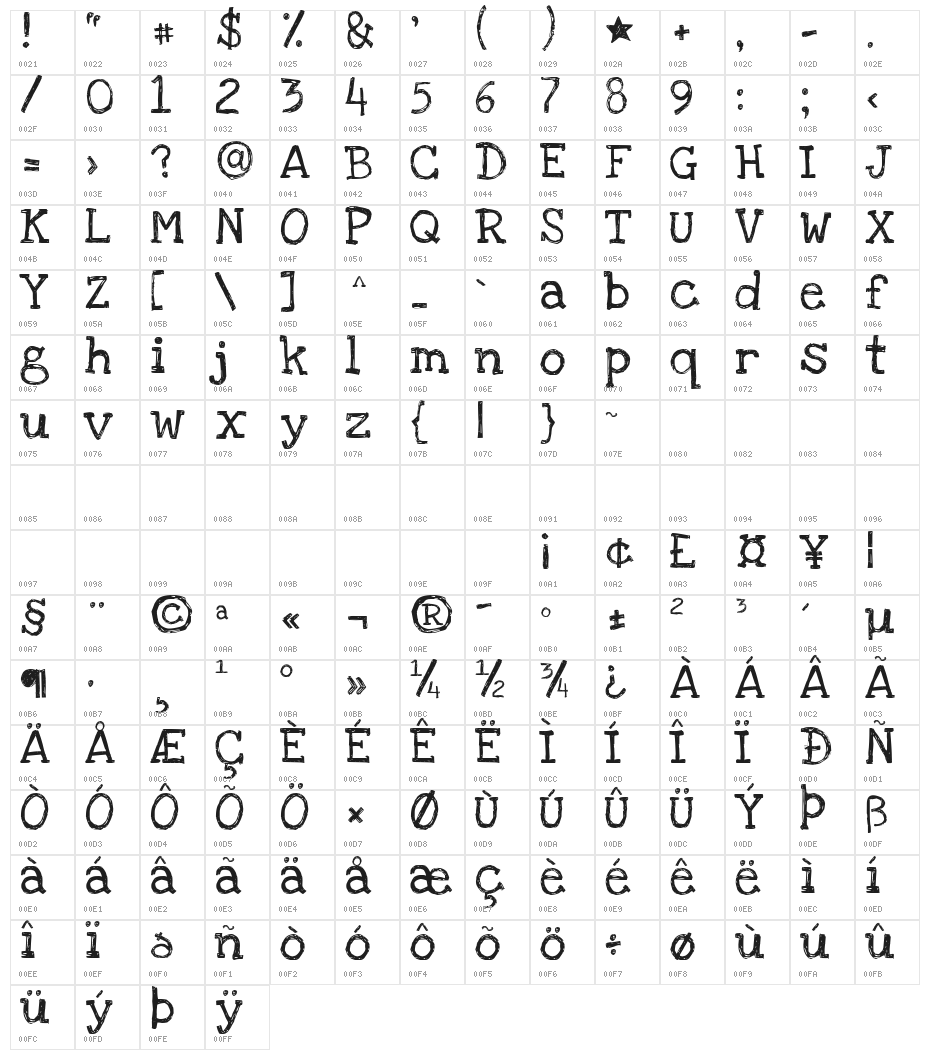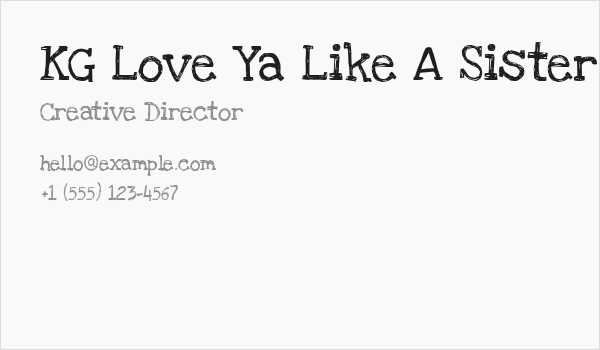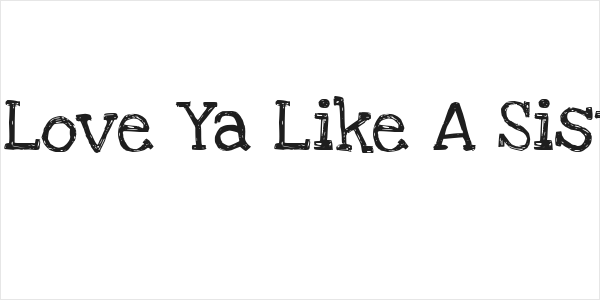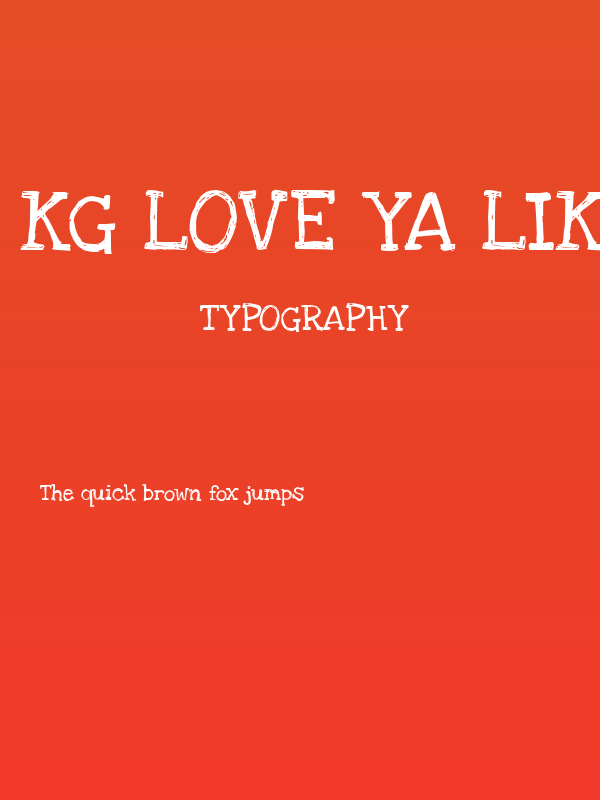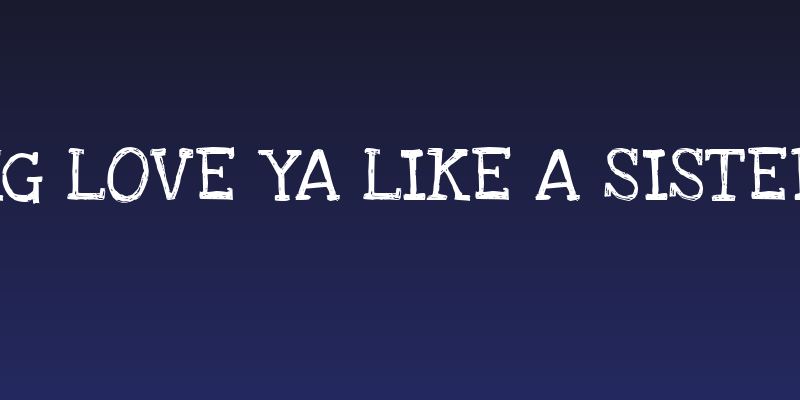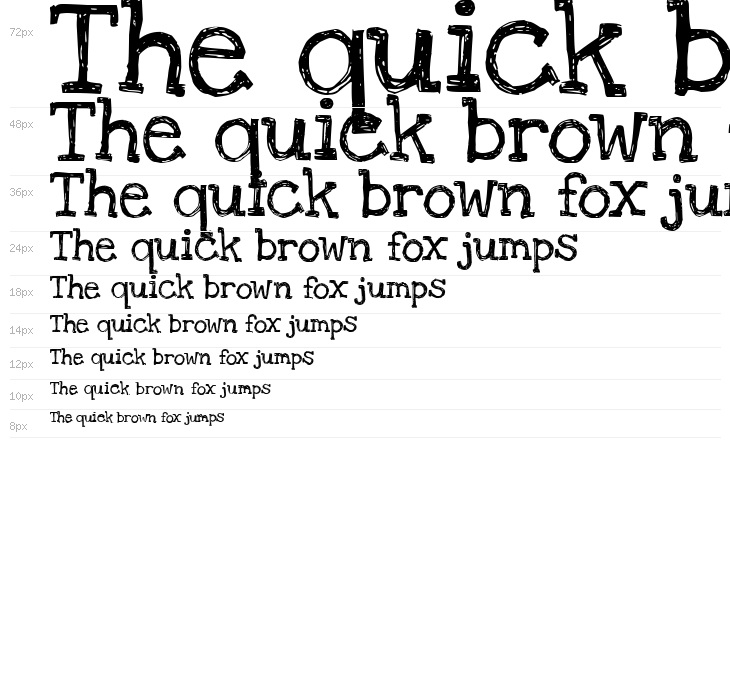
KG Love Ya Like A Sister Font
KG Love Ya Like A Sister Description
This font features a playful and whimsical design with a hand-drawn aesthetic. The letters are bold and slightly irregular, giving them a casual and friendly appearance. Each character is outlined with a rough, sketch-like texture that adds a unique charm and personality. The uppercase and lowercase letters maintain a consistent style, while the numbers and special characters complement the overall look with similar detailing. This font is perfect for projects that require a fun and informal touch, such as children's books, greeting cards, or playful branding.
| Proposed Projects | Ideal for children's books, greeting cards, playful branding, and casual invitations. |